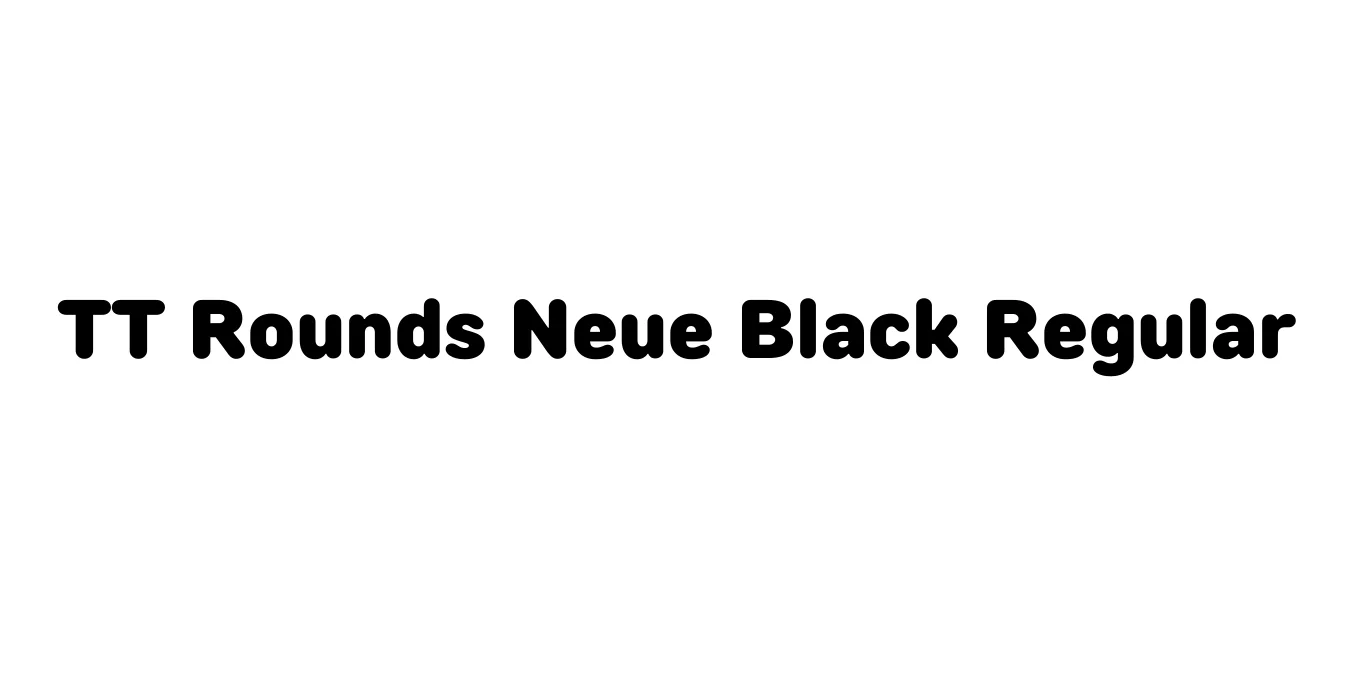
TT Rounds Neue Black Regular
Designed by TypeType Team
TT Rounds Neue Black Regular is a significant evolution of the classic TT Rounds family, meticulously redesigned by the TypeType foundry to meet modern aesthetic and technical standards. This typeface family was updated to provide better proportions, improved kerning, and a much broader range of OpenType features. The Black weight offers the most substantial visual presence in the family, combining a heavy, authoritative footprint with the signature soft, rounded corners that define the series.
This font is particularly celebrated for its friendly and approachable character, which avoids the clinical coldness of traditional geometric sans serifs. Because of its high legibility and soft aesthetic, it has become a favorite for designers working on projects that require a balance between professionalism and warmth. It supports a vast range of languages and includes various stylistic alternates, making it a versatile tool for international branding and complex layout designs.
TT Rounds Neue Black Regular Best Uses
Perfect for logos and visual identities for startups, tech companies, and children's brands.
Excellent for high-impact titles in magazines, posters, and web banners.
Ideal for user interface elements that need to look inviting and easy to navigate.
Works well on product packaging where a bold yet soft touch is required.